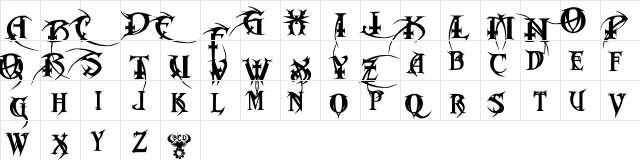
Metal Macabre Regular
| Designer | BoltCutterDesign |
Design Context for Metal Macabre Typeface
Metal Macabre is a composed and adaptable typeface that performs quietly and consistently across a wide range of design contexts.